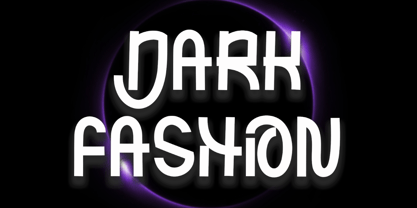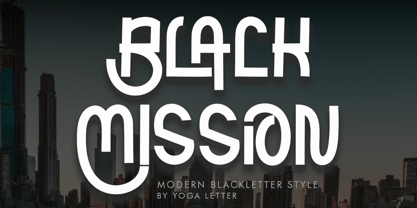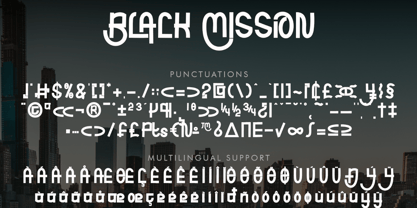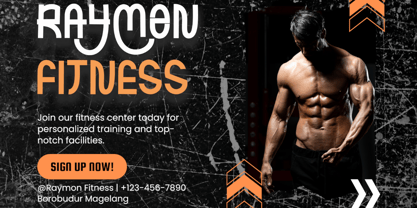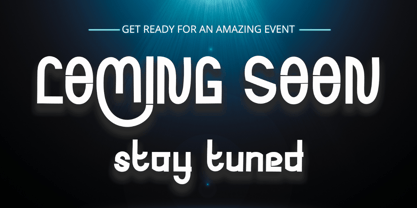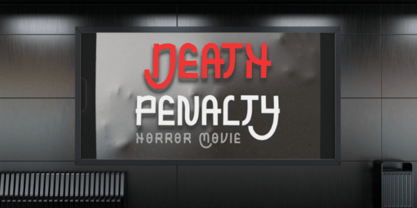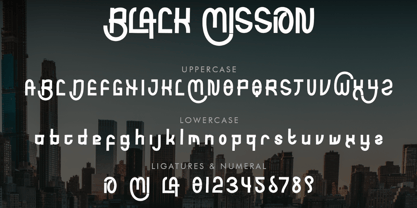
Black Mission
by Yoga Letter
The Black Mission Font Family was designed by Isroni Yoga Prasetya and published by Yoga Letter. Black Mission contains 1 styles. More about this family
"Black Mission" is an elegant and modern blackletter font. It features uppercase and lowercase letters, ligatures, numerals, punctuations, and multilingual support. It's perfect for Halloween, Christmas, business branding, stickers, posters, prints, tattoos, social media, and more.
Designers: Isroni Yoga Prasetya
Foundry: Yoga Letter